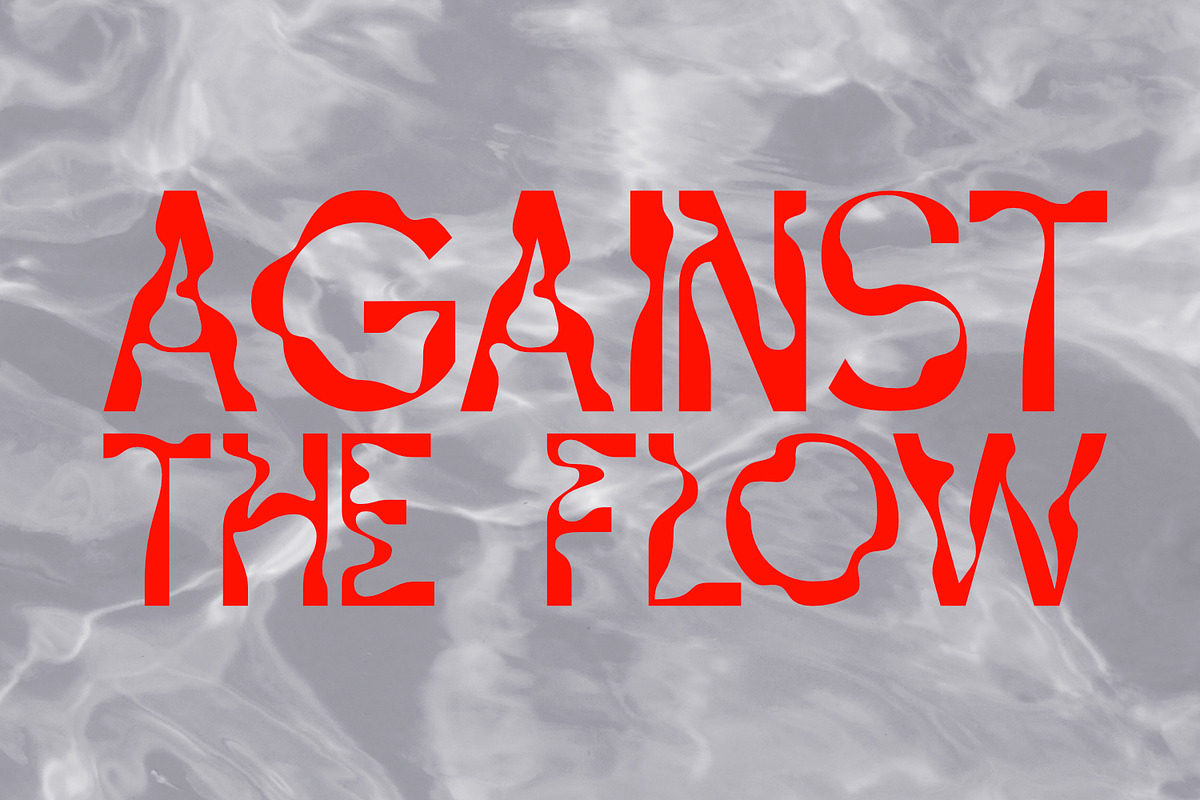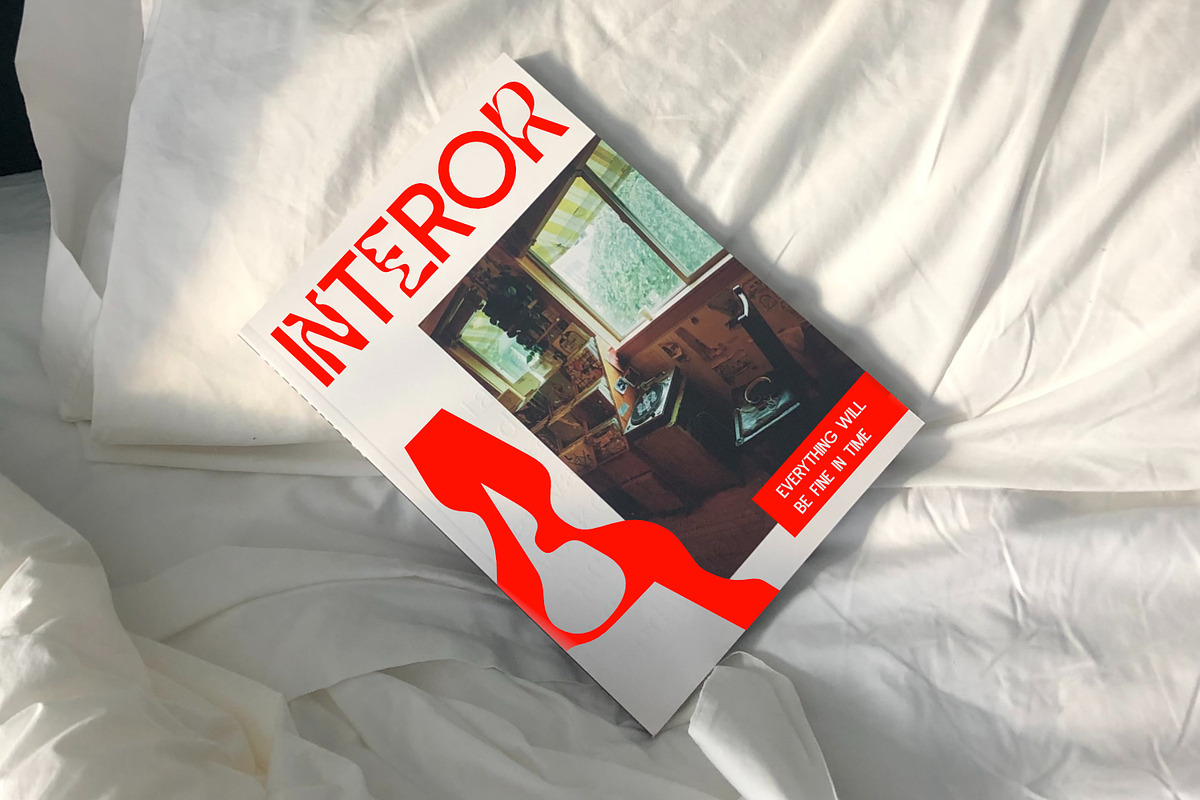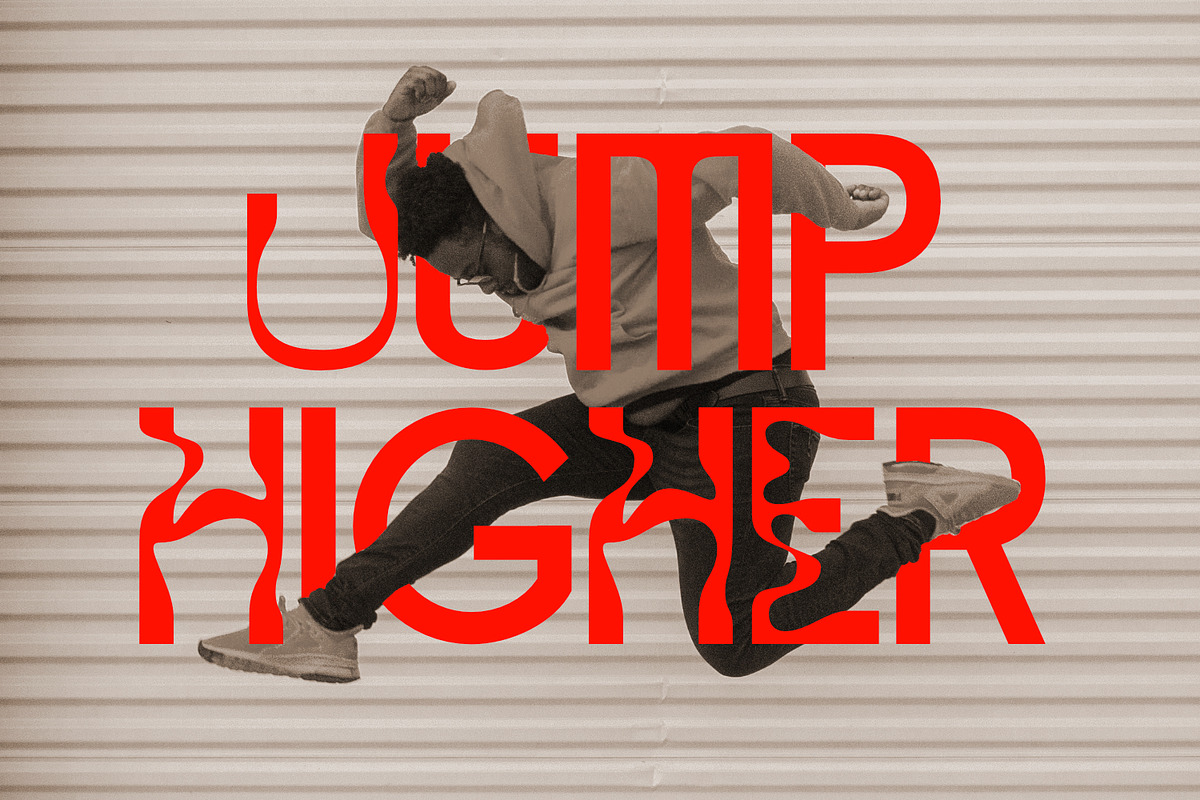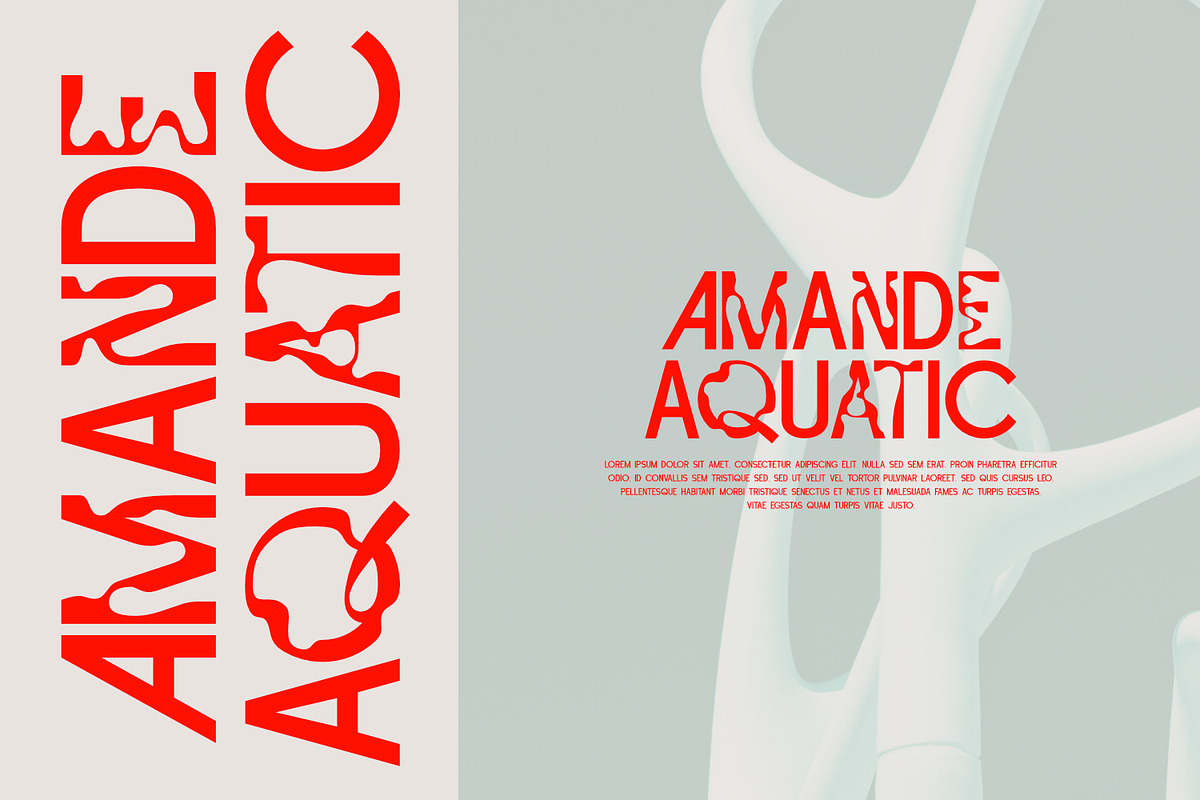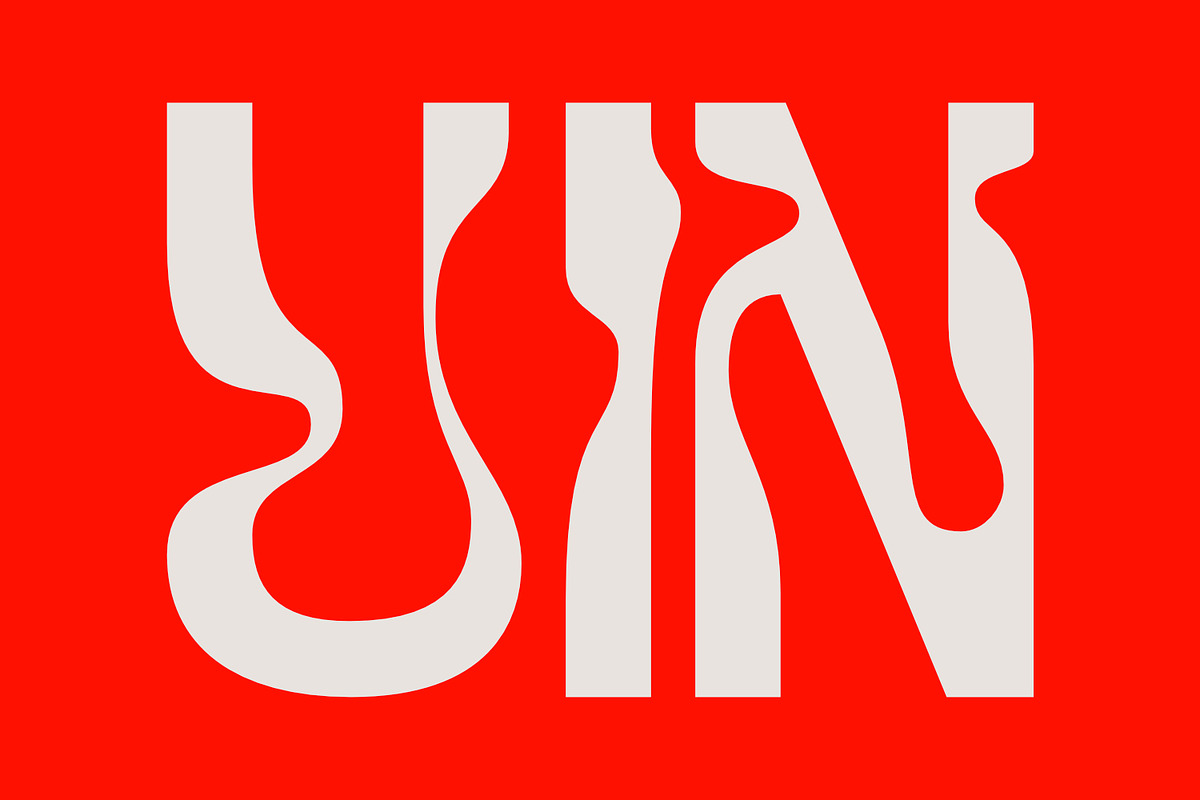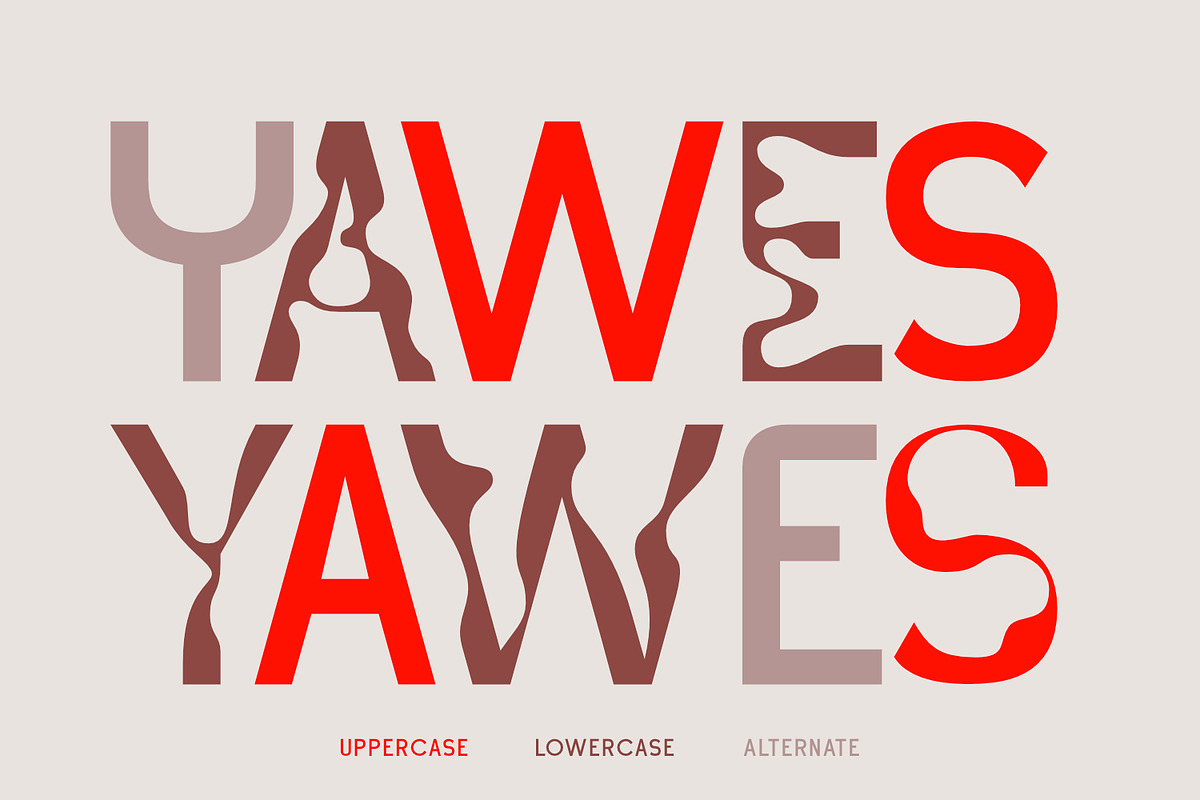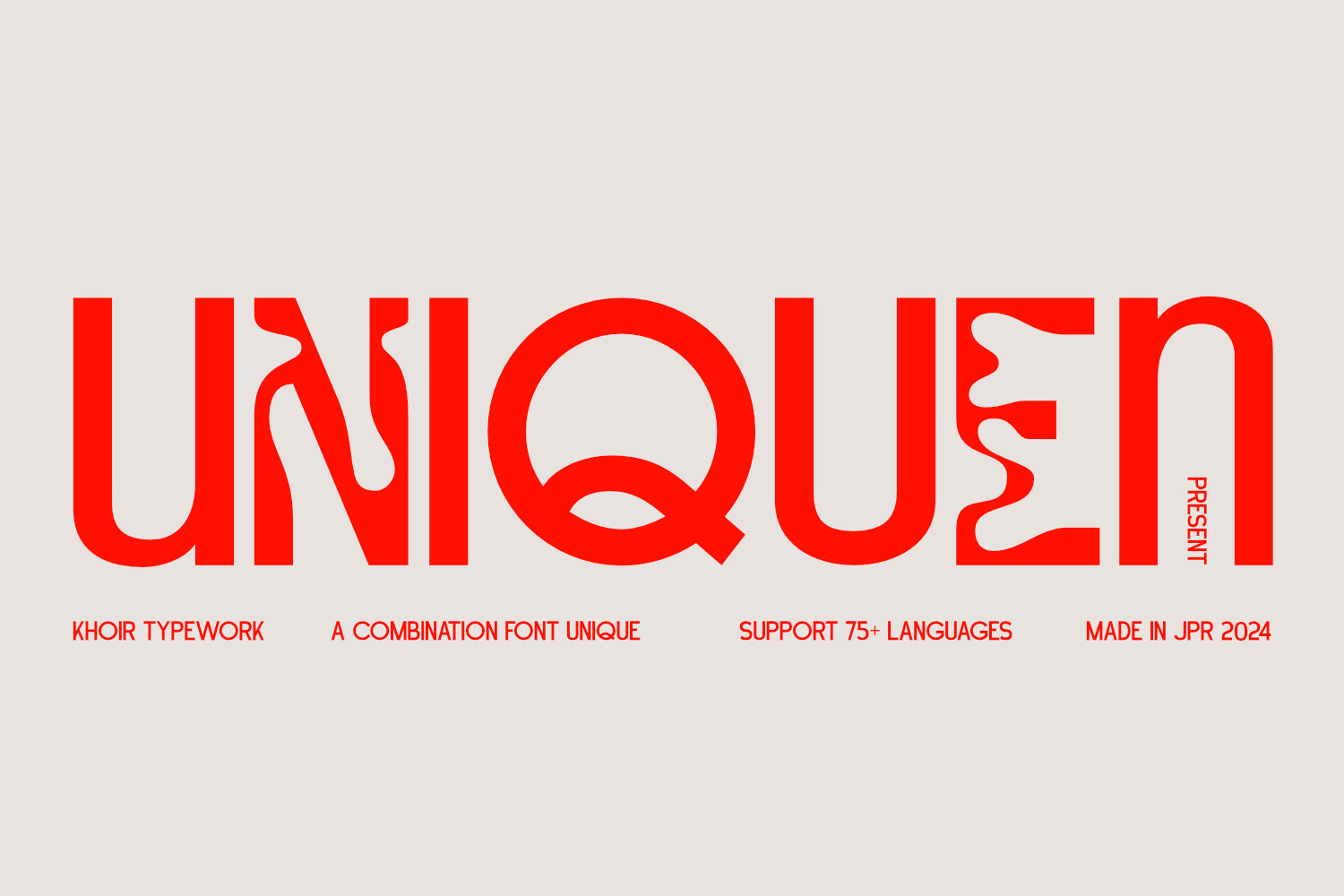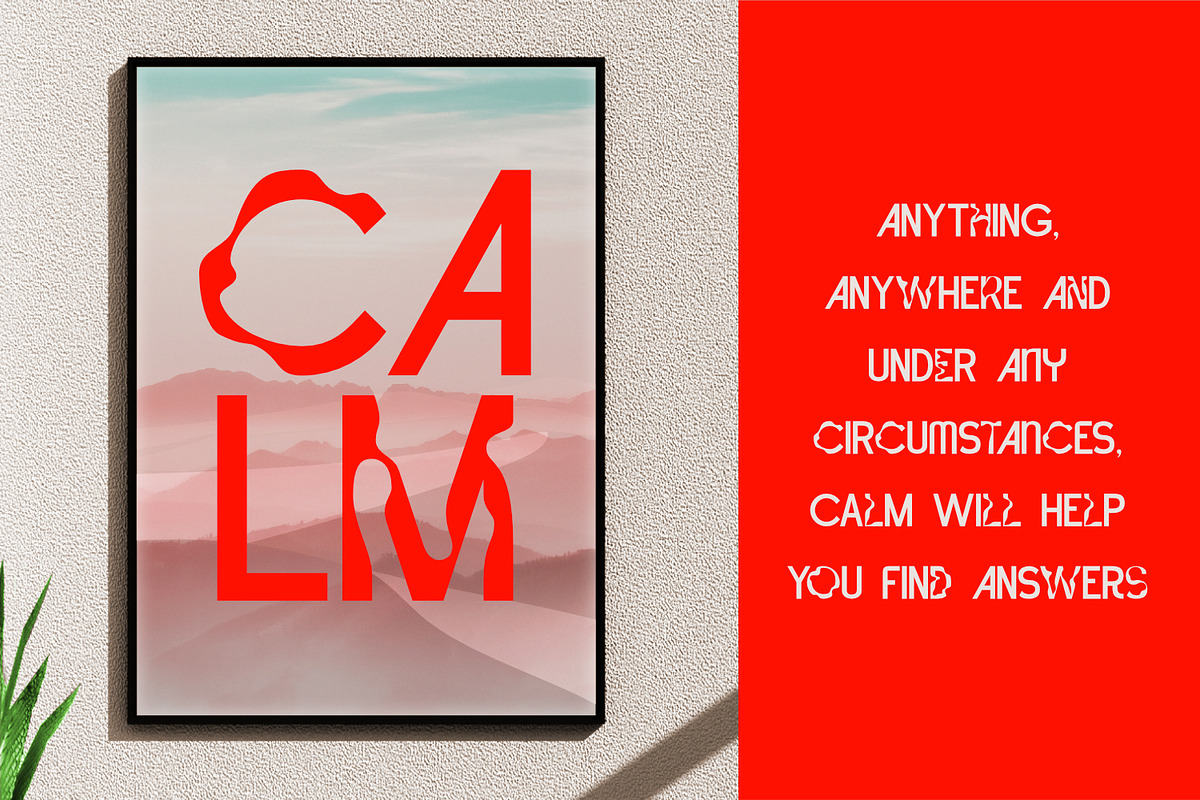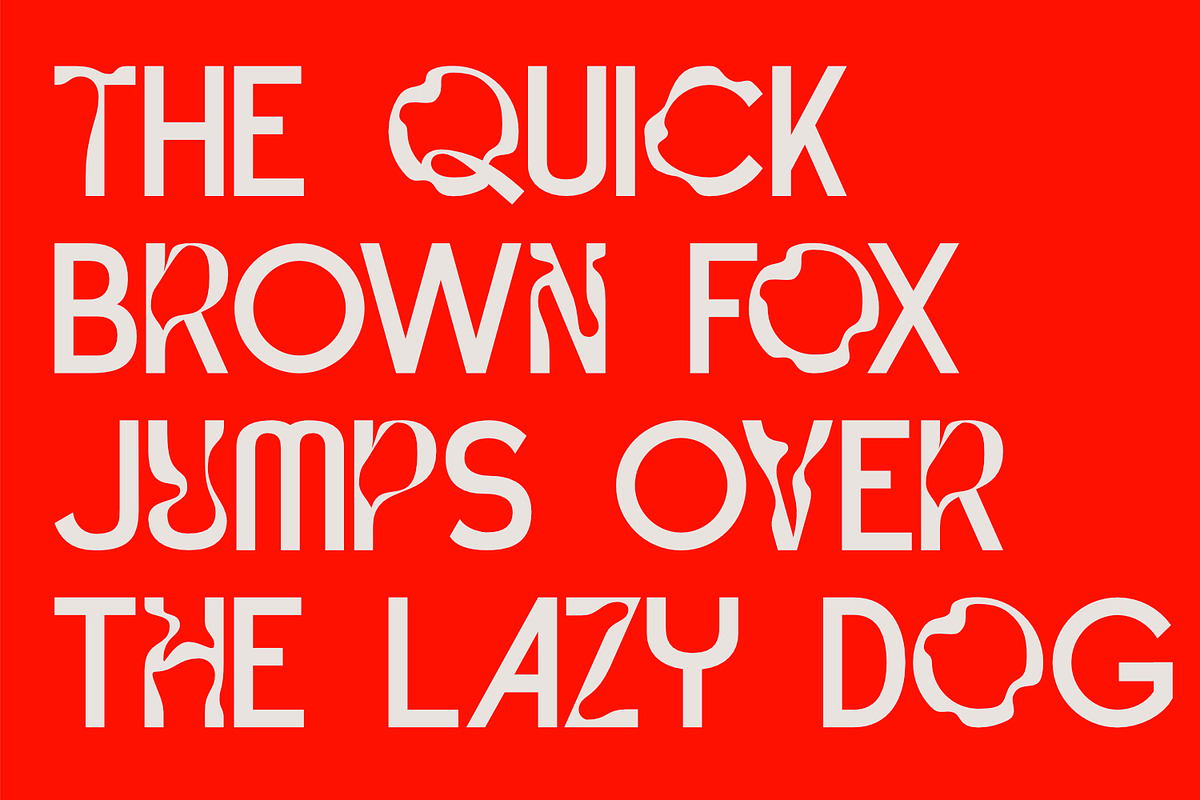
Uniquen - Combination Unique Font
Uniquen is 2 fonts combined into one unique unit and can give an elegant impression, but its uniqueness does not affect its readability.
This font is equipped with various features ranging from alternatives, 75+ multilingual support and this font is suitable for your design needs such as poster design, branding, books, magazines, social media, logo design, etc.
- Combination
- 75+ Language